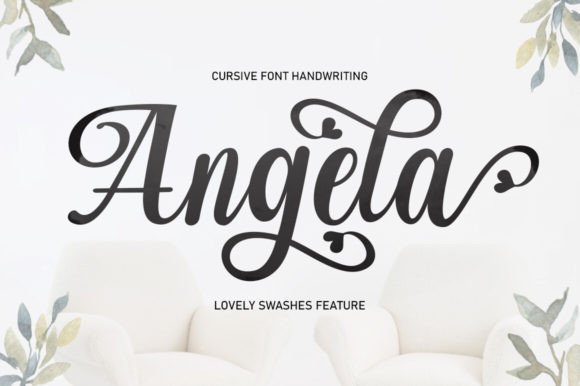
The Art of Telling a Story through Font
Have you ever stumbled upon a beautiful handwritten note from a loved one, and instantly felt a rush of emotions? The way the words flowed effortlessly, like a warm hug on a cold day, left an indelible mark on your heart. That’s the magic of handwritten touch, and it’s exactly what the Angela Story Font brings to the table.
This elegant script font is a masterclass in storytelling, capable of evoking emotions and setting the tone for any design project. Whether it’s a wedding invitation, a thank you card, or a quote that needs to be shared, Angela Story Font adds a personal touch that’s hard to replicate with traditional fonts. For designers, this font is a valuable addition to their toolkit, offering endless possibilities for creative expression.
Angela Story Font Key Features
- Font Family: Angela Story is a unique, hand-drawn script font designed to evoke a sense of storytelling and nostalgia.
- Character Set: The font includes a wide range of characters, including uppercase and lowercase letters, numbers, punctuation, and special characters.
- Size: Angela Story is available in a single weight, making it ideal for use in body text, headings, and titles where a consistent look is desired.
- Resolution: Designed to be scalable, Angela Story can be used at various resolutions, from small text to large headlines, without losing its legibility or charm.
- Unique Characteristics: The font features a distinctive, hand-written feel with subtle imperfections and variations in letterforms, giving it a personal and emotive touch.
Angela Story Font Review
Overall, I’m quite pleased with the Angela Story Font. It’s a beautiful script font that’s perfect for adding a touch of elegance to your designs. ✨ One of its strongest features is its versatility – it works well for both formal and informal projects. The flowing connections between letters create a sense of movement and fluidity that’s hard to resist.
The font comes in a range of weights, from light to bold, which allows for a high degree of customization. ✨ The subtle variations in stroke width and letterform shape make it easy to create a consistent look across different elements in your design. Additionally, the font’s high legibility ensures that your text will be easily readable, even at smaller font sizes.
What I Liked:
- ✨ Beautiful script design
- ✨ Versatile and suitable for various projects
- ✨ Customizable through different weights
- ✨ High legibility
- ⚠️ May be too ornate for some designs
- ⚠️ Not ideal for small or dense text
Overall, I’d highly recommend the Angela Story Font for any project that requires a touch of sophistication and elegance. While it may have some limitations, its unique design and versatility make it a valuable addition to any designer’s toolkit.
To get the most out of the Angela Story Font, use it for titles, headings, and body text in stories, novels, and other written content. You can also use it for branding and marketing materials, such as business cards, brochures, and websites.
The Angela Story Font is commonly used for:
- Storytelling and novel writing
- Print design and publishing
Alternatives to Angela Story Font
Playfair Display is a luxurious serif font ideal for high-end branding, fashion, and luxury products. It’s perfect for creating elegant headlines and titles. It has a more refined and sophisticated look compared to Angela Story Font, which has a more playful and whimsical feel.
Comparison: Playfair Display is more formal and elegant, while Angela Story Font is more casual and creative.
Great Vibes is a modern script font suitable for creating eye-catching headings and titles. It’s perfect for branding, advertising, and editorial projects. It has a more dynamic and energetic feel compared to Angela Story Font, which is more delicate and refined.
Comparison: Great Vibes is more energetic and playful, while Angela Story Font is more subtle and sophisticated.